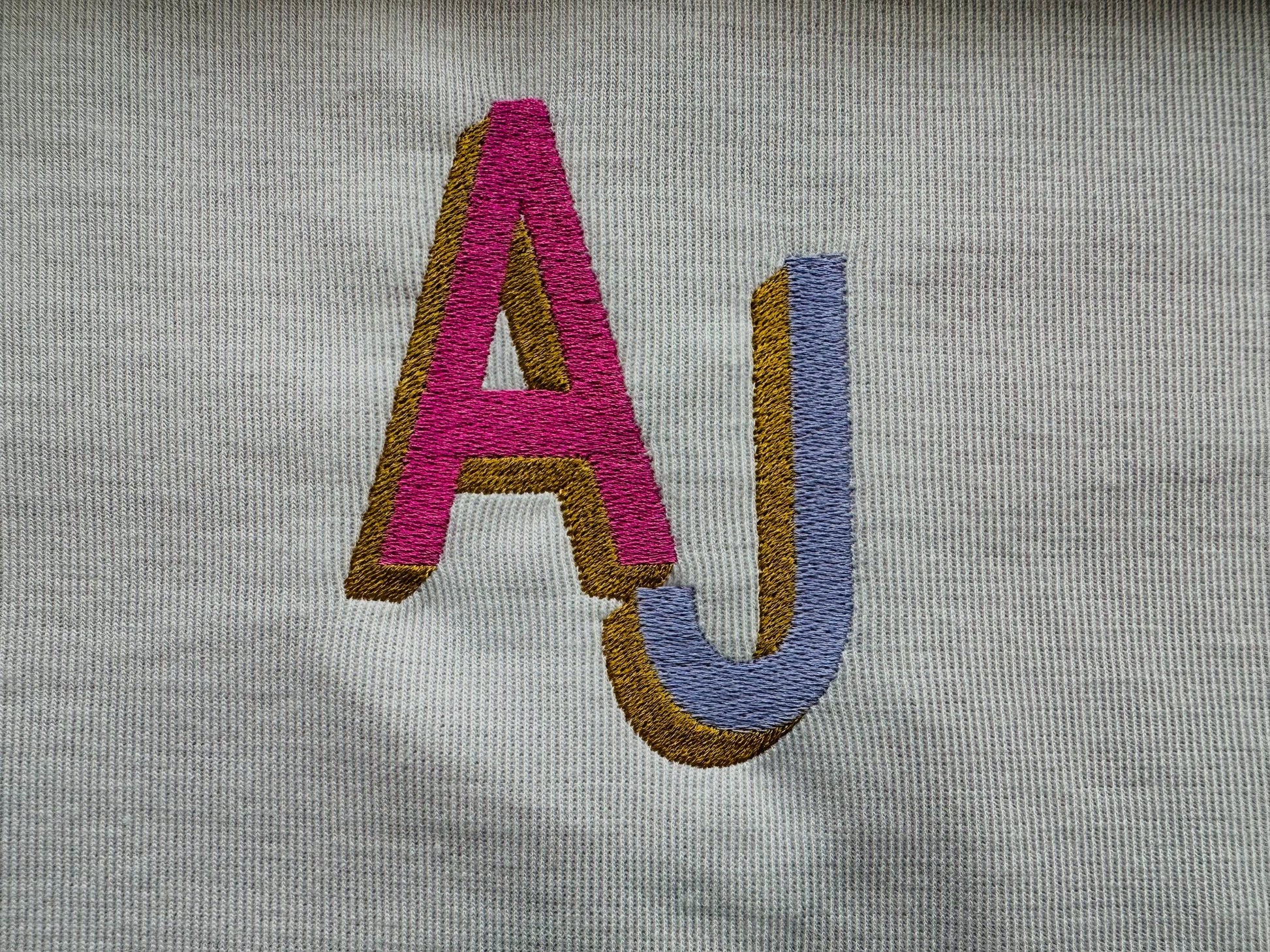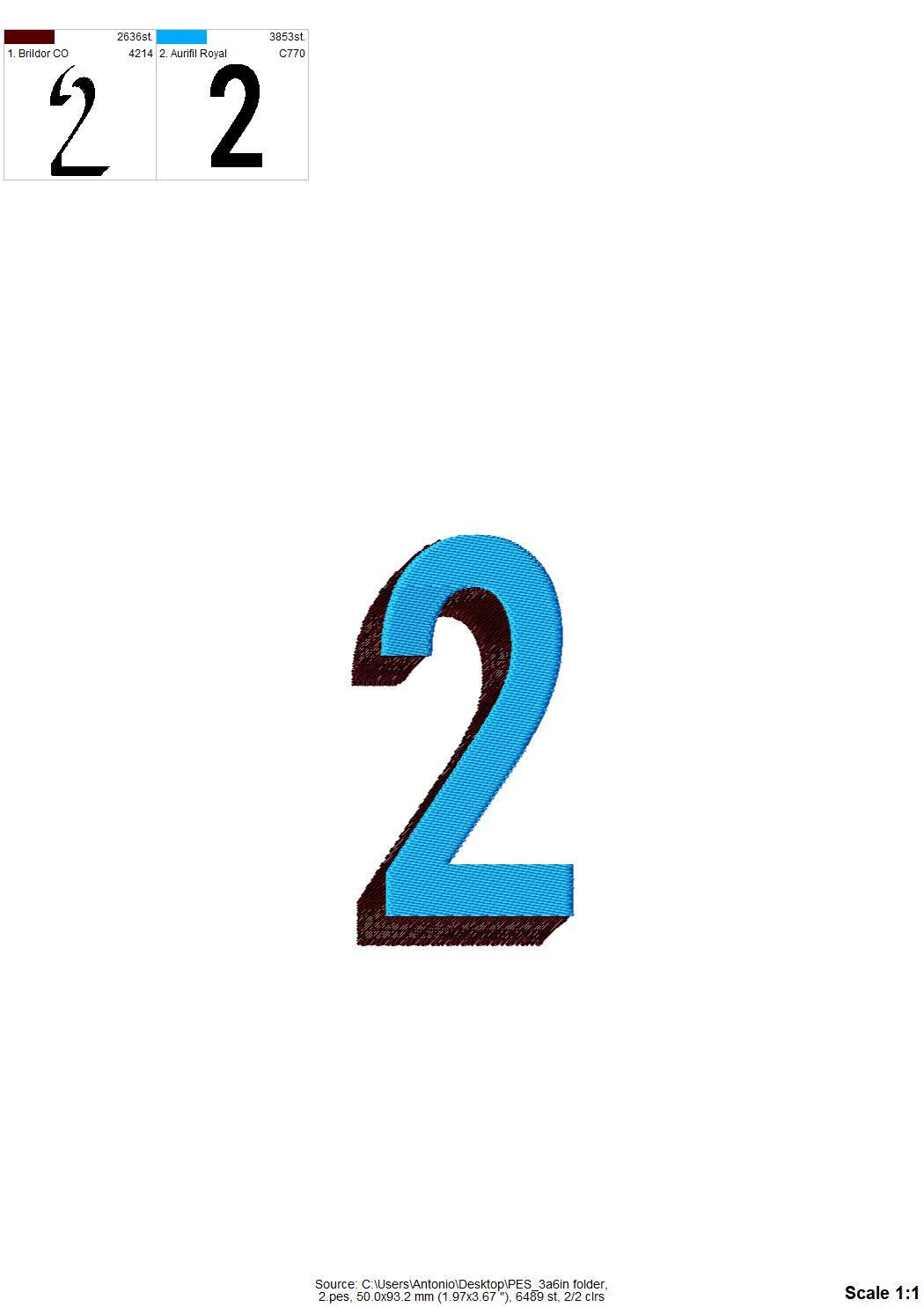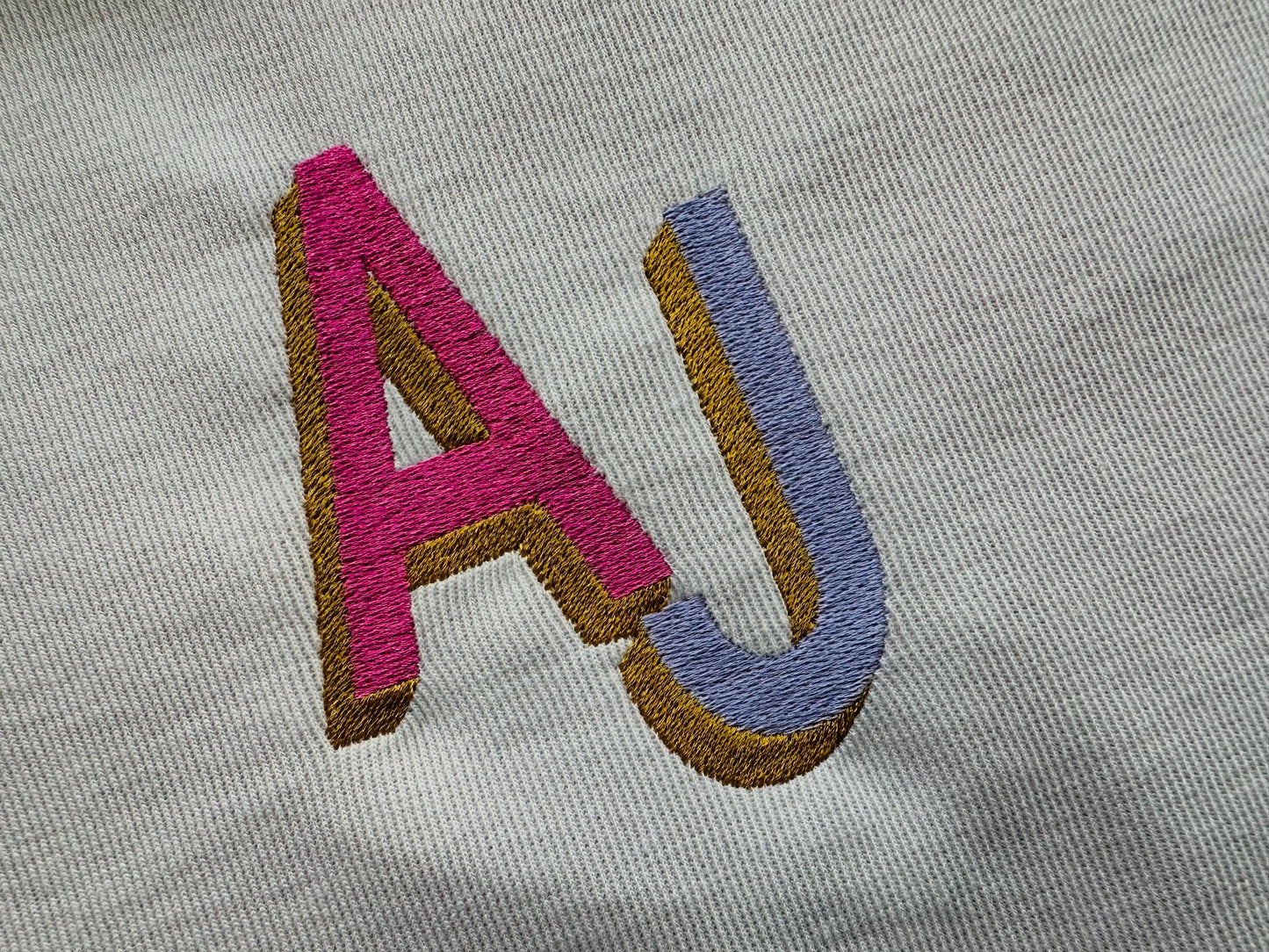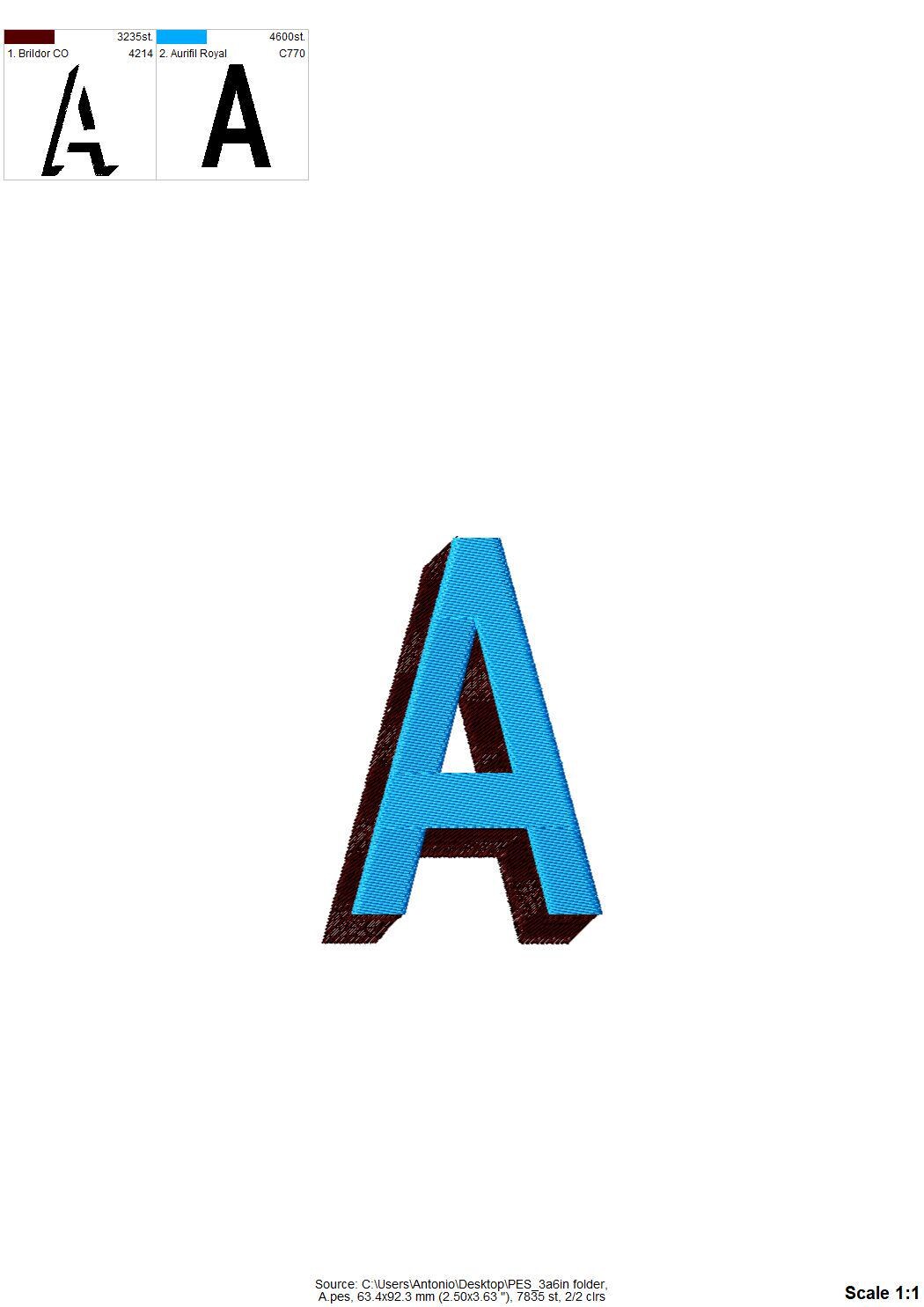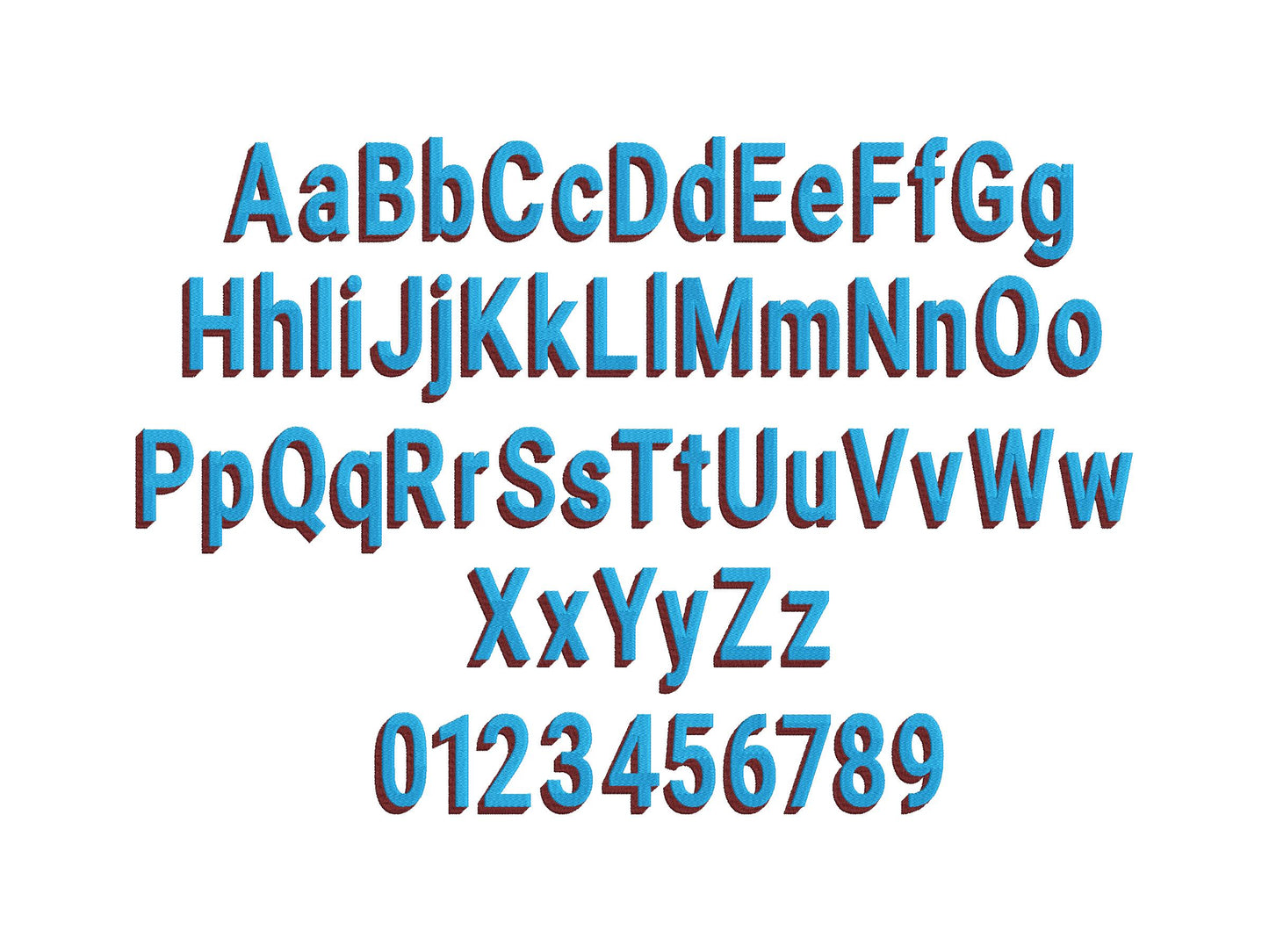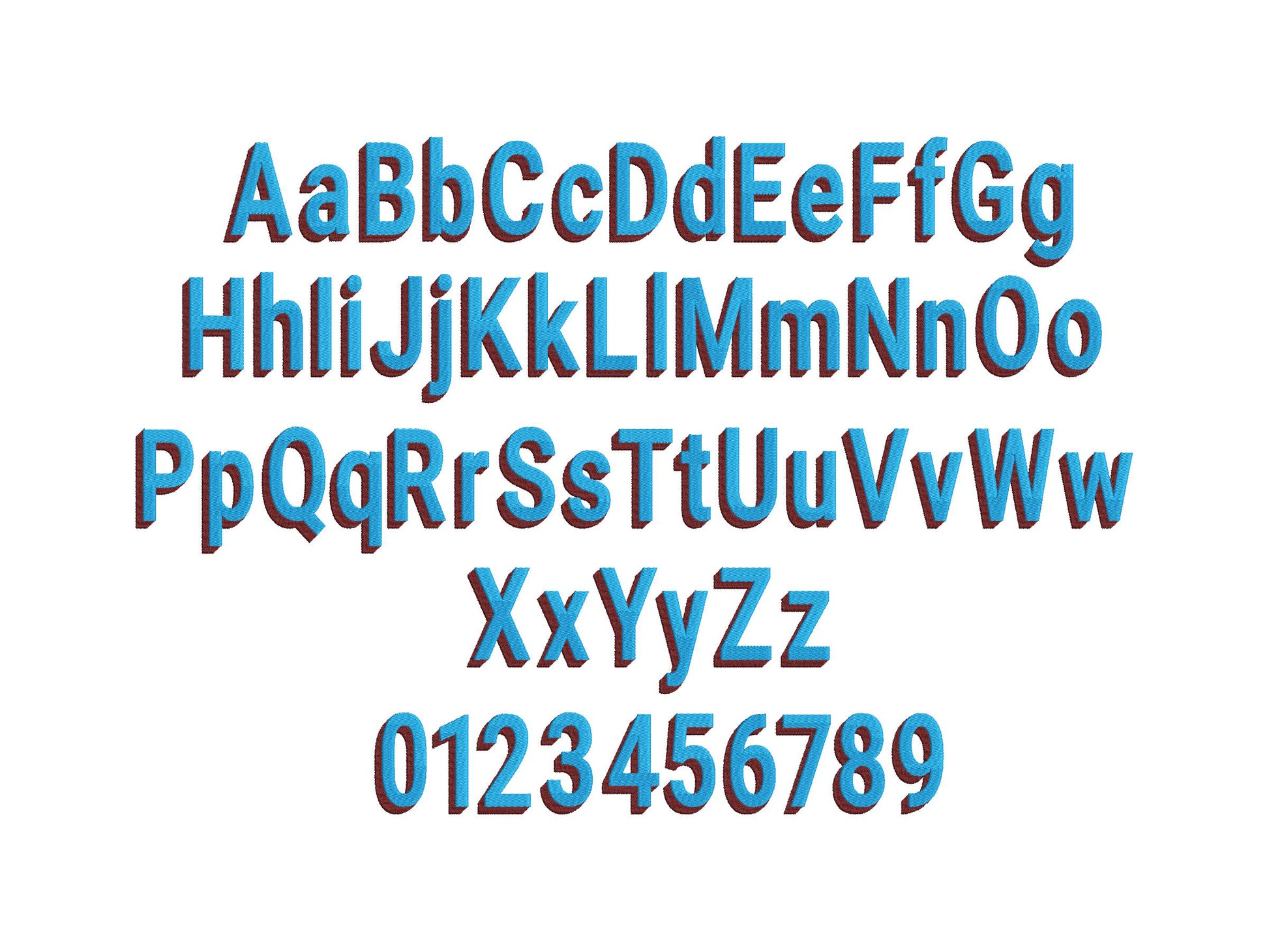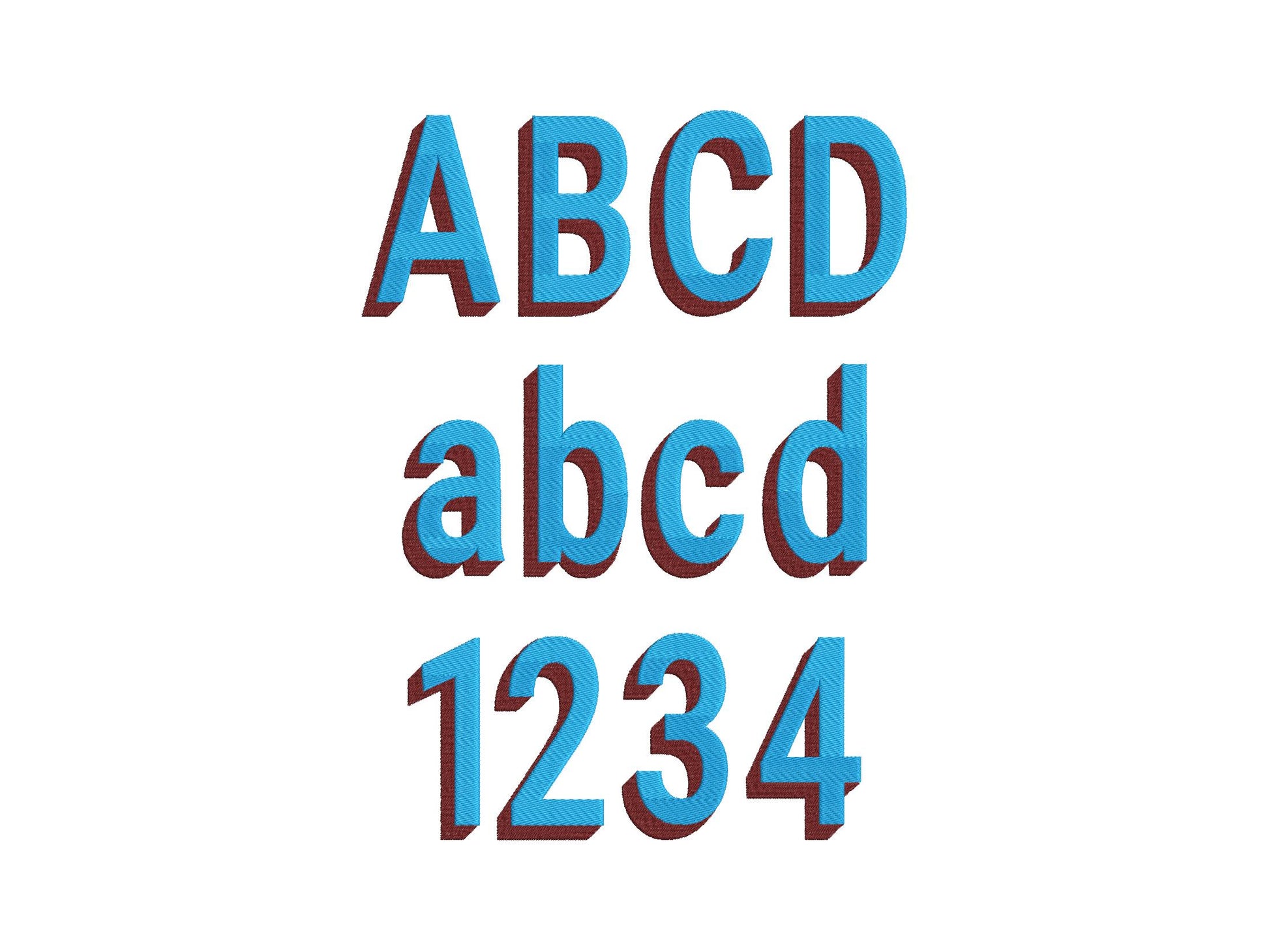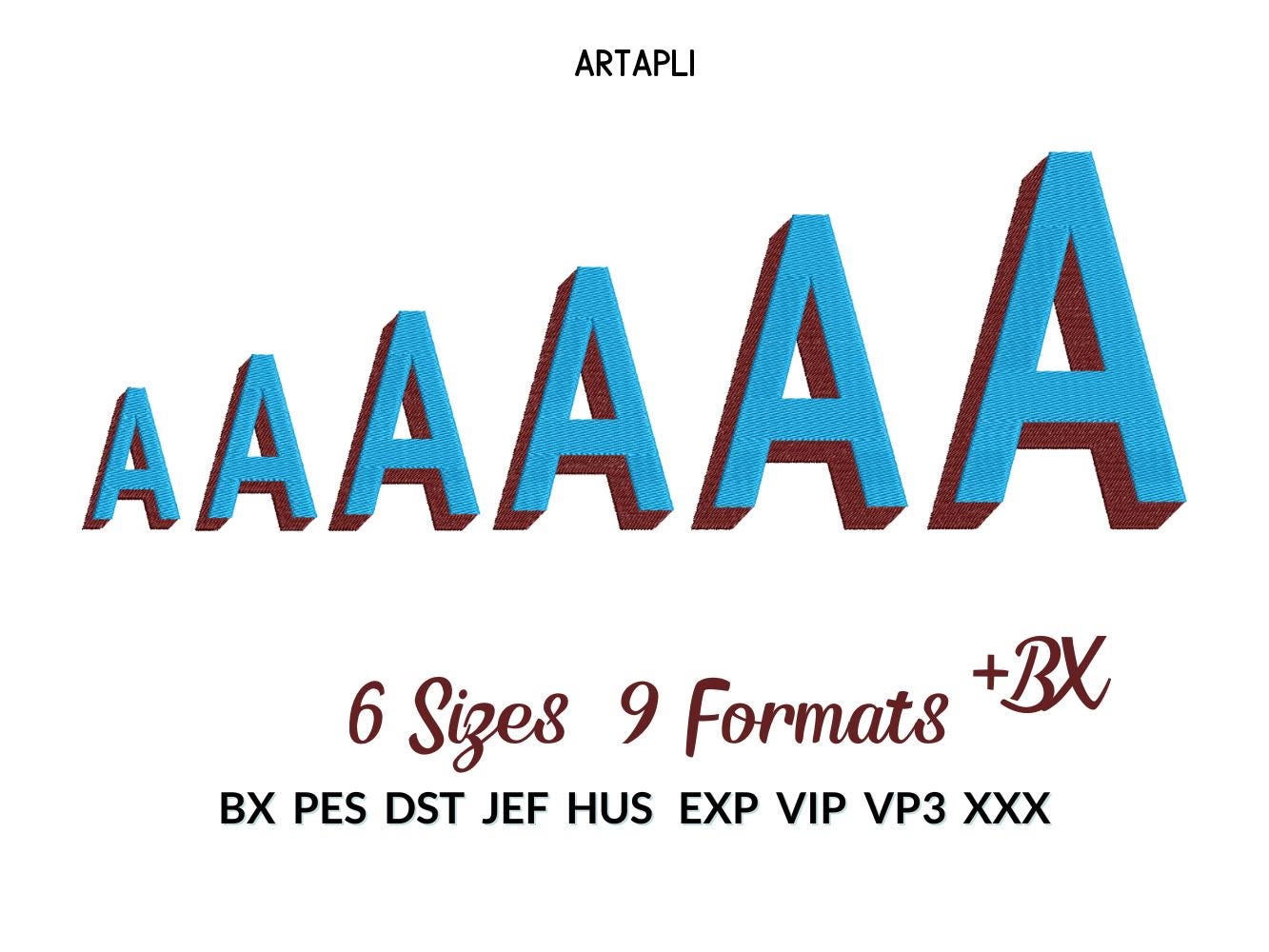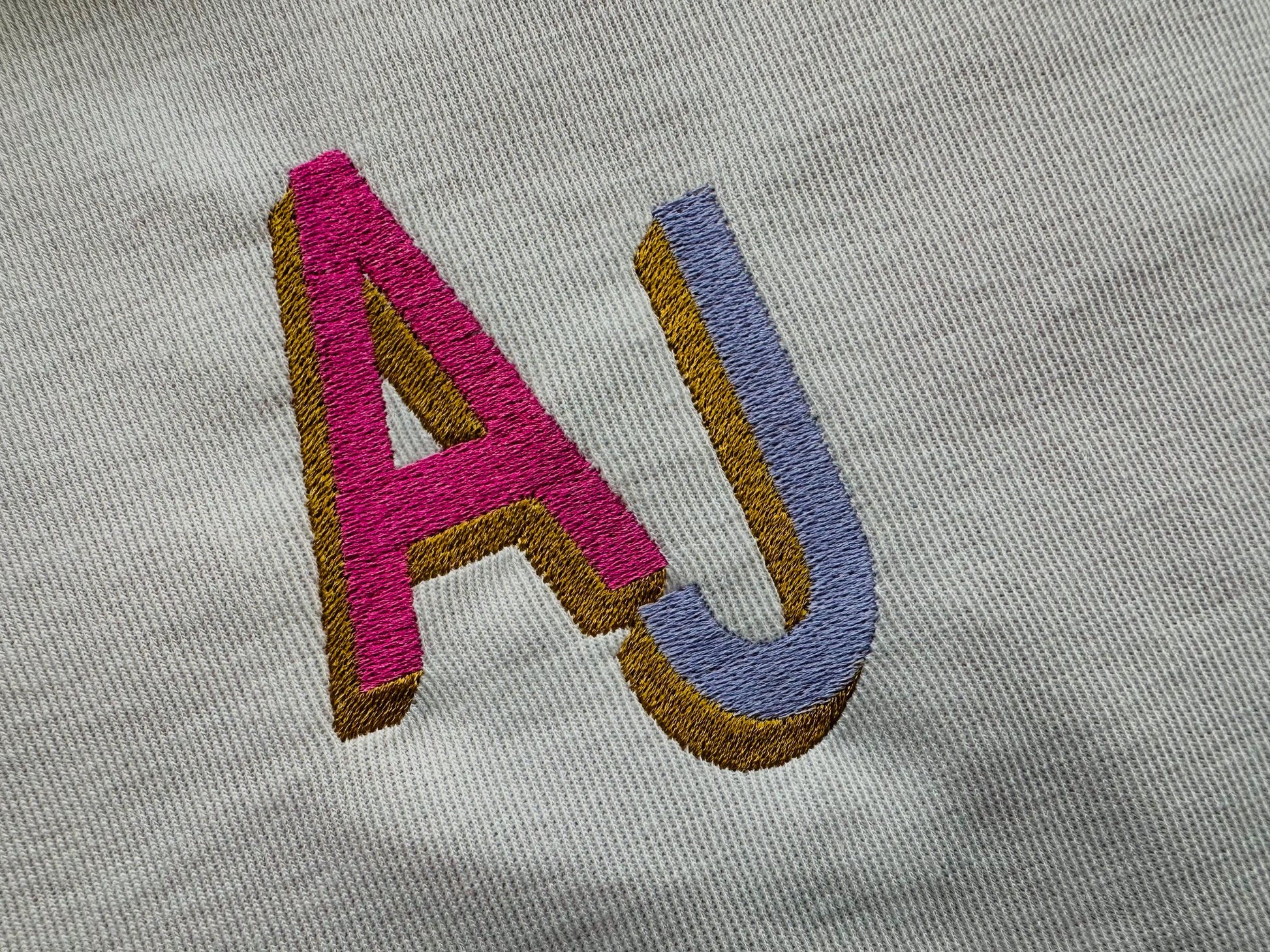
Block Type Narrow Shadow Font Fill Stitch
Uppercase and lowercase letters and numbers 0 to 9. Six sizes: 2, 2.4, 3, 3.6, 4.3 and 5.2 inches.
- Narrow block shadow font, fill stitch
- Uppercase, lowercase, numbers 0 to 9
- 6 sizes, 2 to 5.2 in